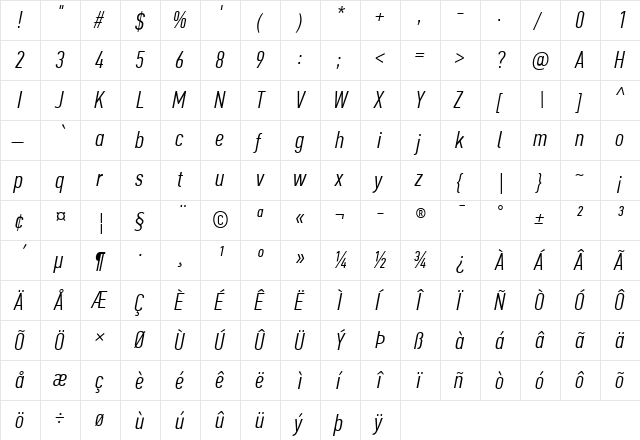
PF Din Text Comp Pro Light Italic Font Preview
PF Din Text Comp Pro Light Italic
PF Din Text Comp Pro Light Italic Font Details
Design Context for PF Din Text Comp Pro Typeface
PF Din Text Comp Pro is a composed and adaptable typeface that performs quietly and consistently across a wide range of design contexts. The dynamic lean of this cut emphasises speed and emphasis in any layout. Its slender proportions lend an understated elegance to any composition.
Pro Tip: Use PF Din Text Comp Pro for emphasis, pull quotes, and subheadings where its slanted energy can add rhythm to the layout.